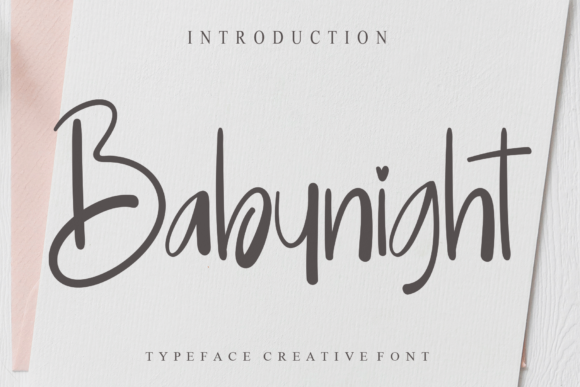
About Babynight Font
Babynight is an elegant script font with a contemporary atmosphere and impeccable form, inspired by timeless classic calligraphy. Not too thin and not too thick, balanced and varied, this font was designed to enhance the beauty of your projects.